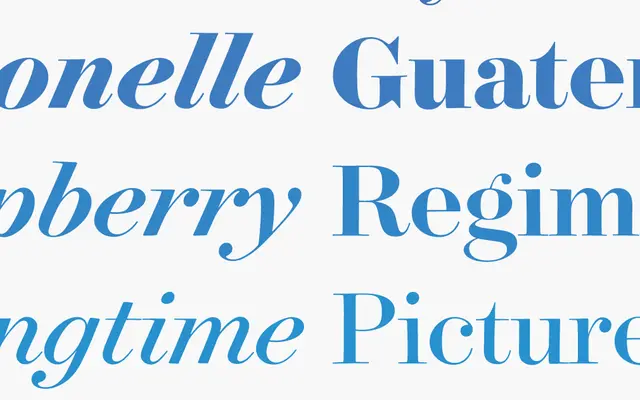
Surveyor
Hoefler & Co · 2013
A serif system inspired by engraved map lettering, offered in three optical sizes with smart swashes and small caps across the family.
A serif family by H&Co built on the engraved lettering of nineteenth-century maps, originally drawn for Martha Stewart Living and later expanded into a full system. Surveyor runs across multiple weights, with each style available in three optical sizes (Fine for the smallest cover work, Text for body copy and Display for headlines), and a ScreenSmart cut for screen rendering. Roman and italic small caps, tabular figures, fractions and an OpenType-driven smart swash feature support recipes, calendars, step-by-step layouts, maps and editorial features that want compact proportions, delicate serifs and a sinewy italic.
H&Co describe Surveyor as a celebration of nineteenth-century engraved map lettering, with compact proportions, delicate serifs and a sinewy italic. Each style is offered in three optical sizes (Fine, Text and Display) to handle a wide range of sizes.